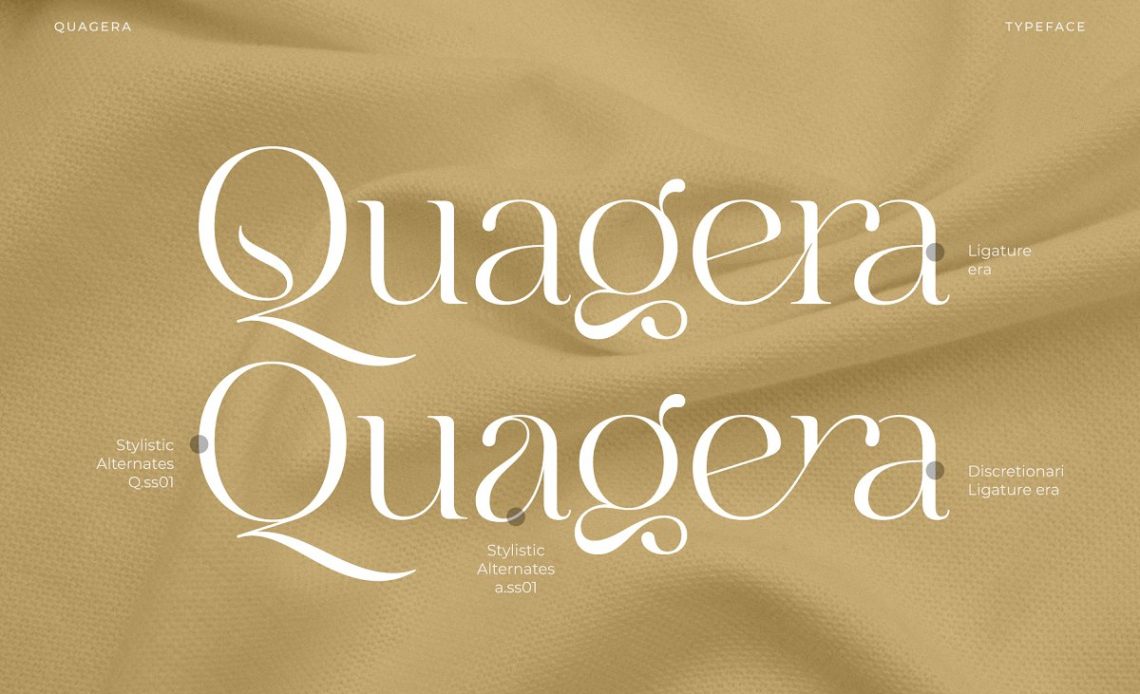
Looking for a font that blends modern and old styles seamlessly? Look no further than Quagera, the stunning serif font created by Yusuf Niki Syahroni. With its unique ligatures, discretionary ligatures, and alternates, Quagera is sure to add a touch of elegance and sophistication to any project.
Whether you're designing a logo, creating invitations, publishing a book, or anything in between, Quagera is the perfect font to make your work stand out. Its versatility makes it suitable for a wide range of projects, from fashion to packaging, from makeup to advertising.
But Quagera is more than just a pretty font - it's also highly functional. Its clean lines and clear lettering make it easy to read, while its classic design adds a touch of timeless elegance. And with its wide range of ligatures and alternates, you'll have all the tools you need to create a truly unique design.